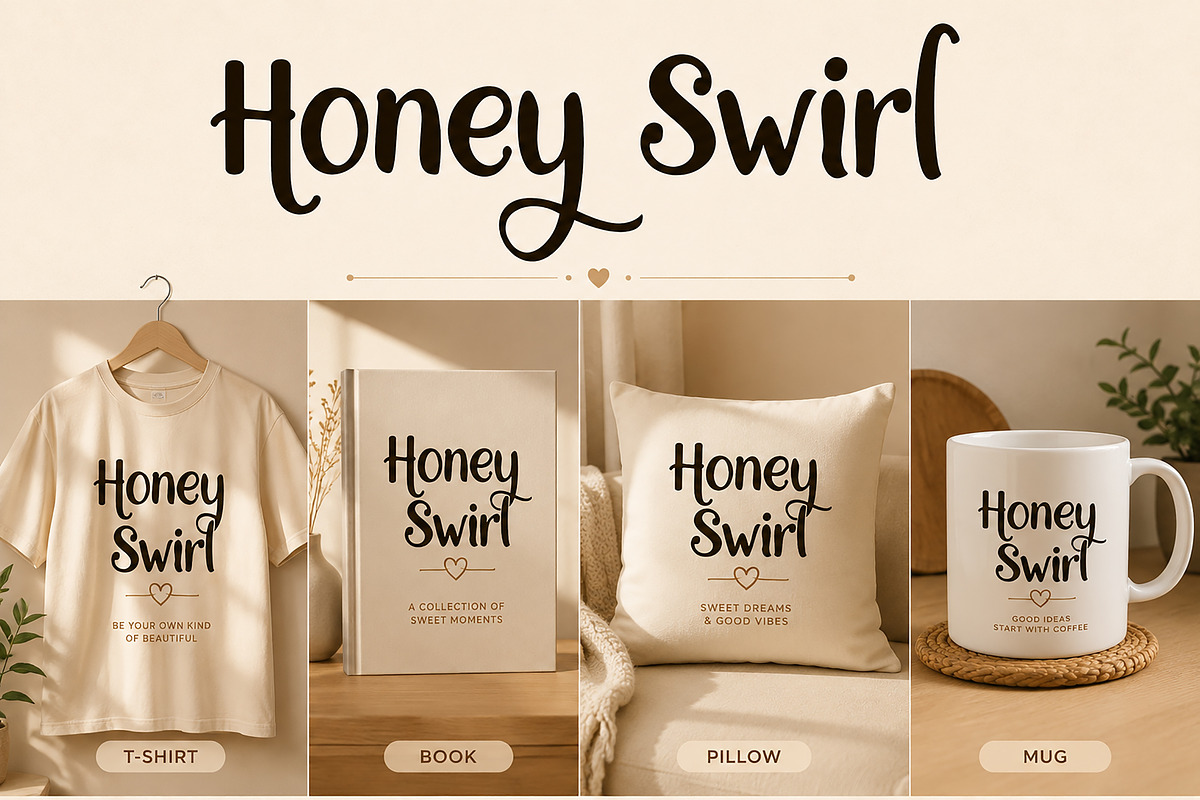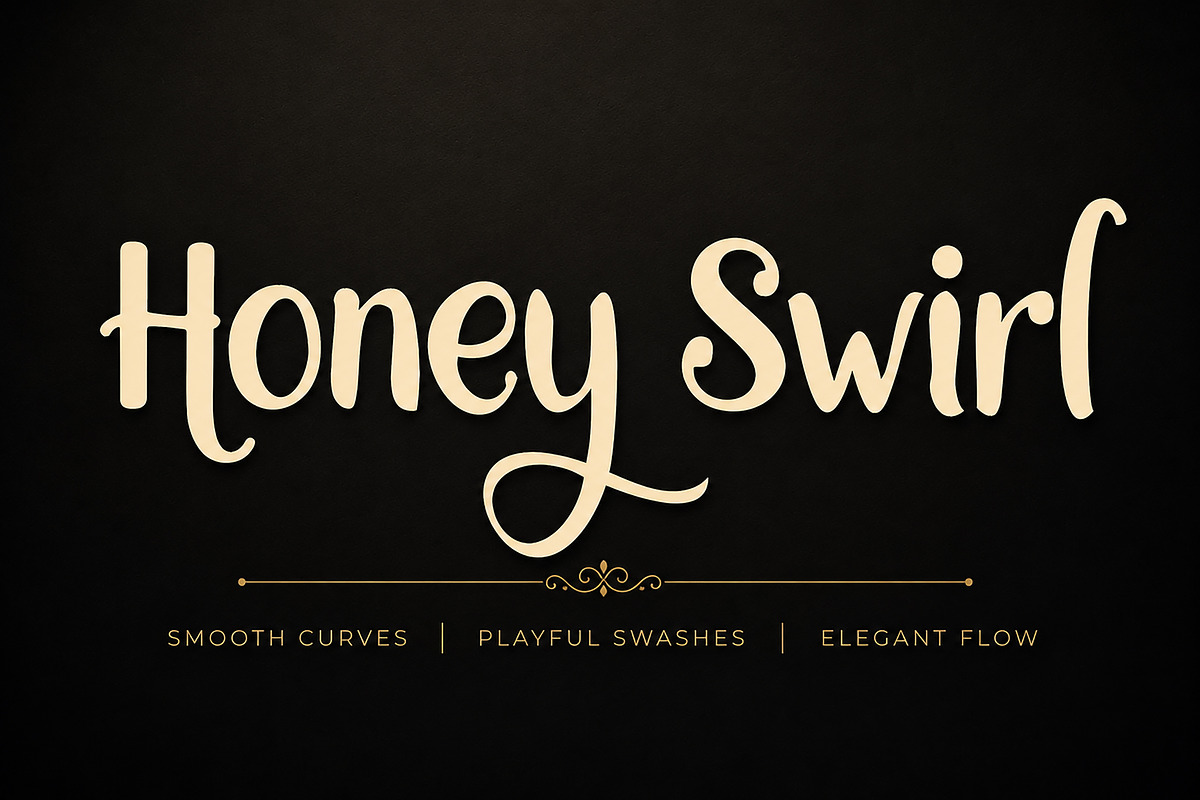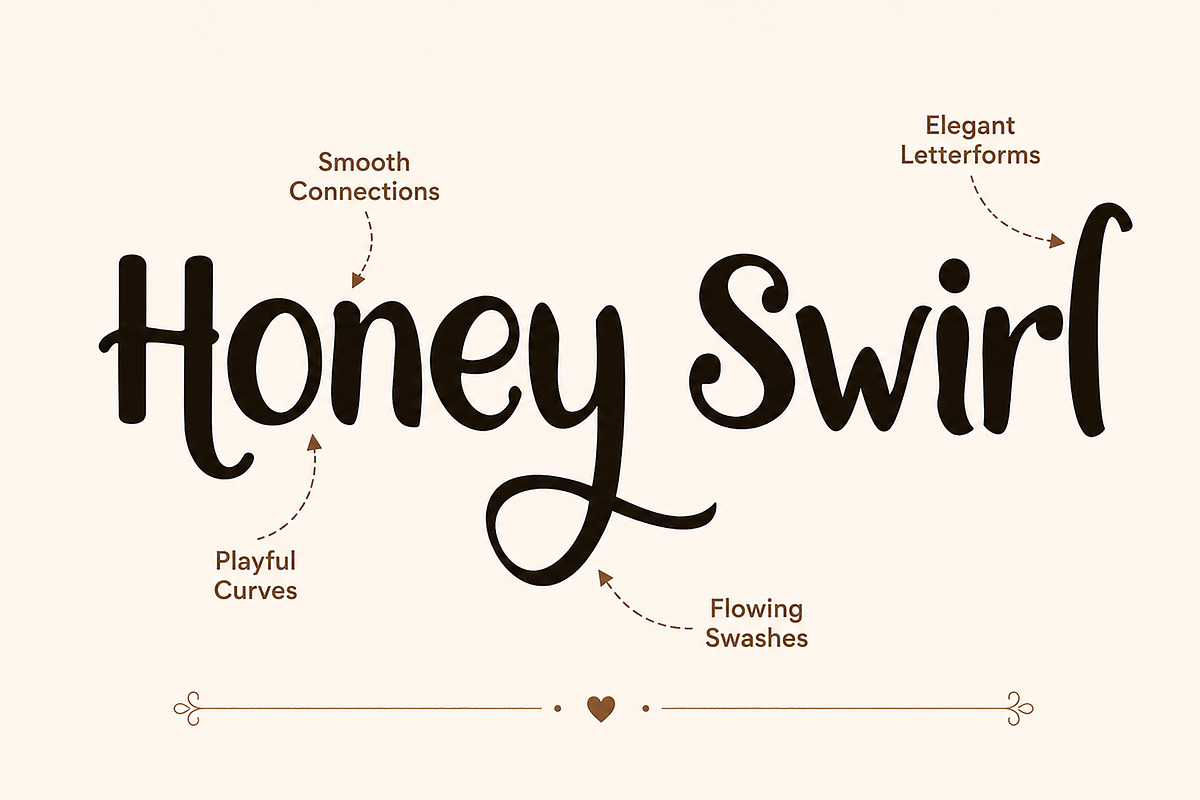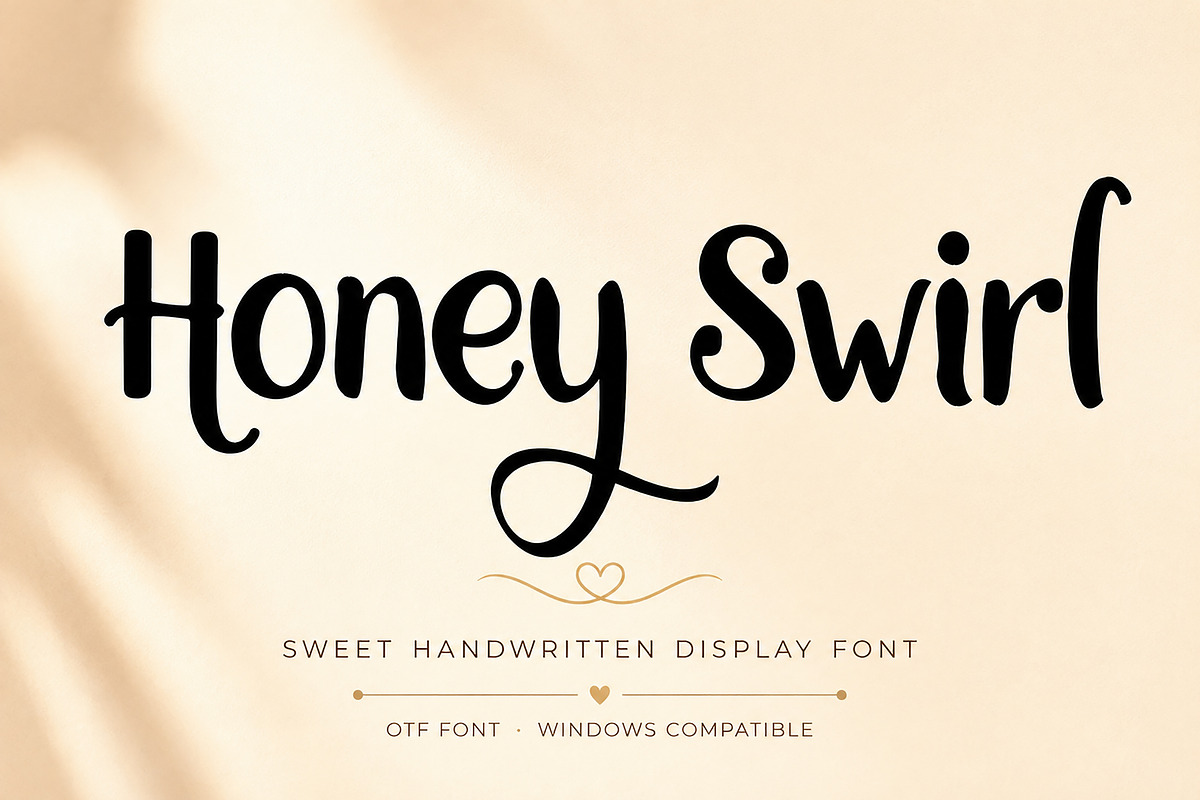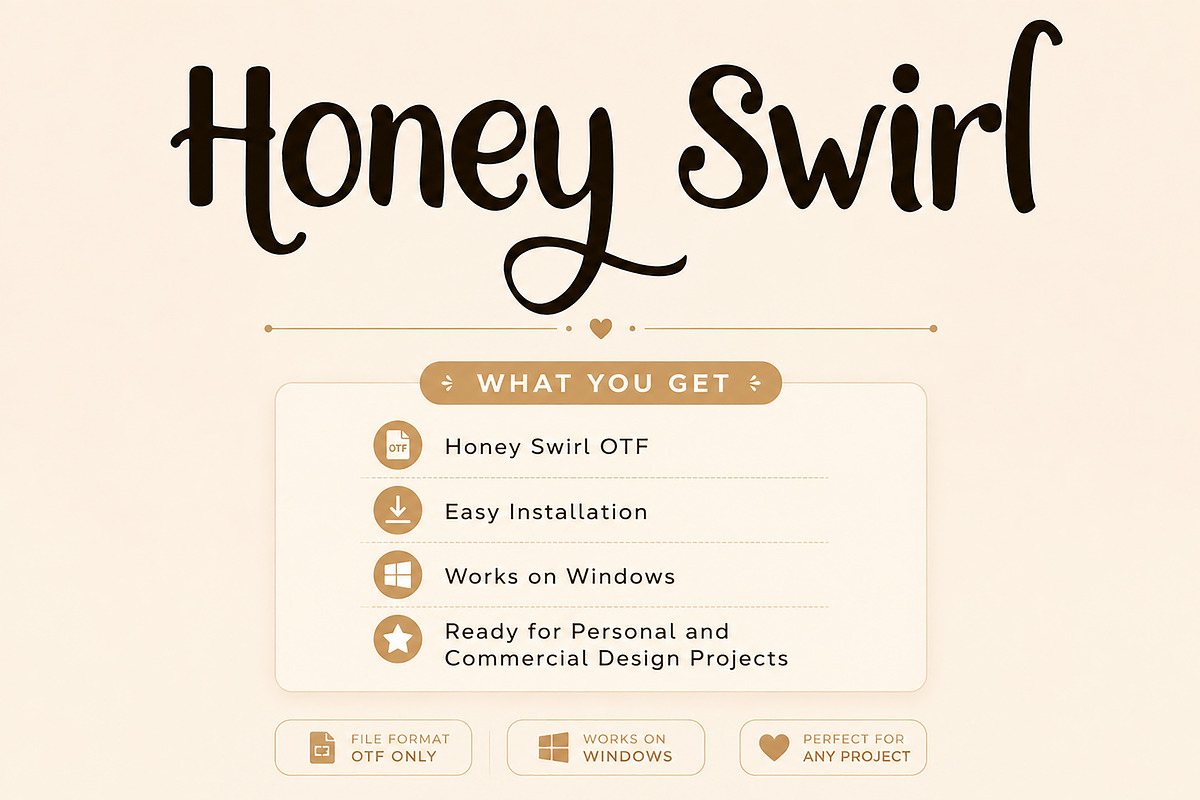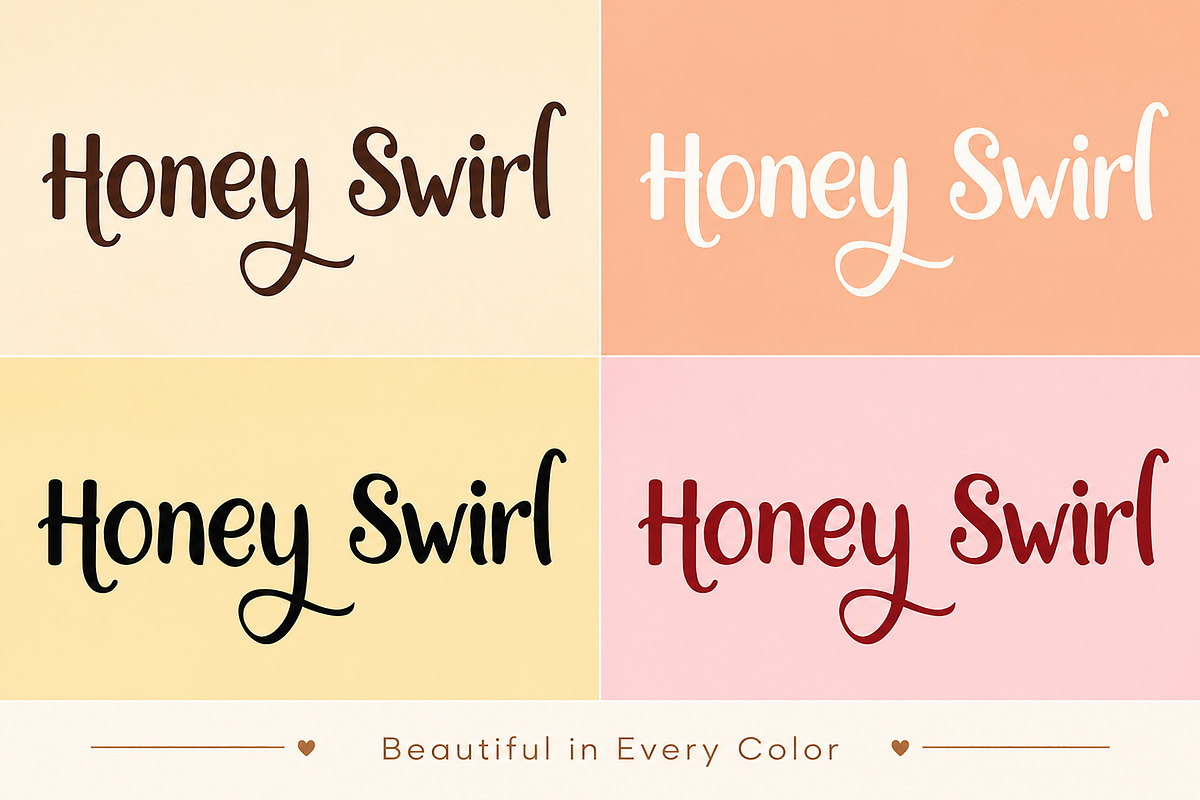
Honey Swirl
Honey Swirl is a sweet, playful, and elegant handwritten display font designed to bring warmth and personality to your creative projects. Featuring smooth curves, flowing swashes, and charming letterforms, this font is perfect for creating eye-catching designs with a friendly, handcrafted feel.
Whether you're designing logos, product packaging, branding, social media graphics, invitations, greeting cards, t-shirts, mugs, pillows, book covers, stickers, or printable artwork, Honey Swirl adds a stylish and unique handwritten touch.
Its clean, rounded strokes make it highly readable while maintaining a fun and modern aesthetic, making it suitable for both personal and commercial design projects.